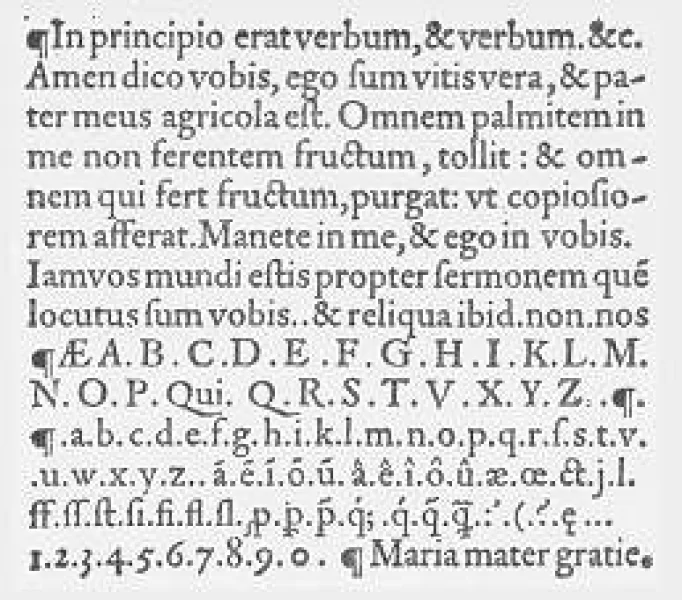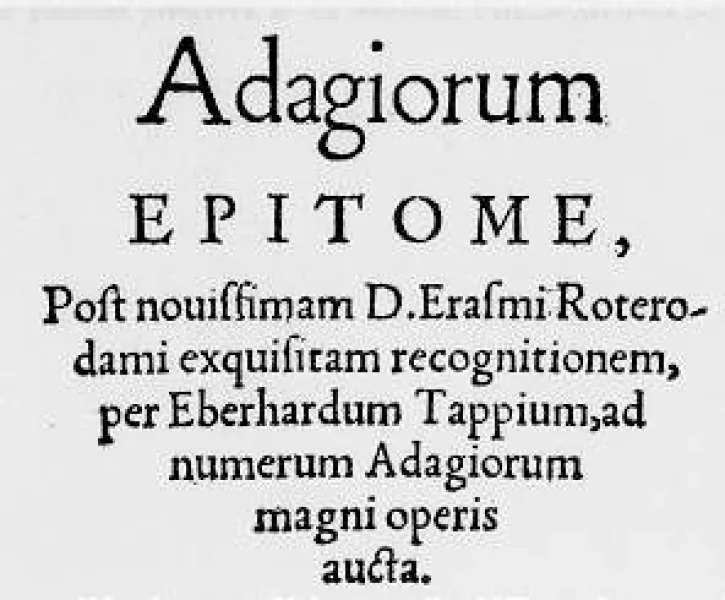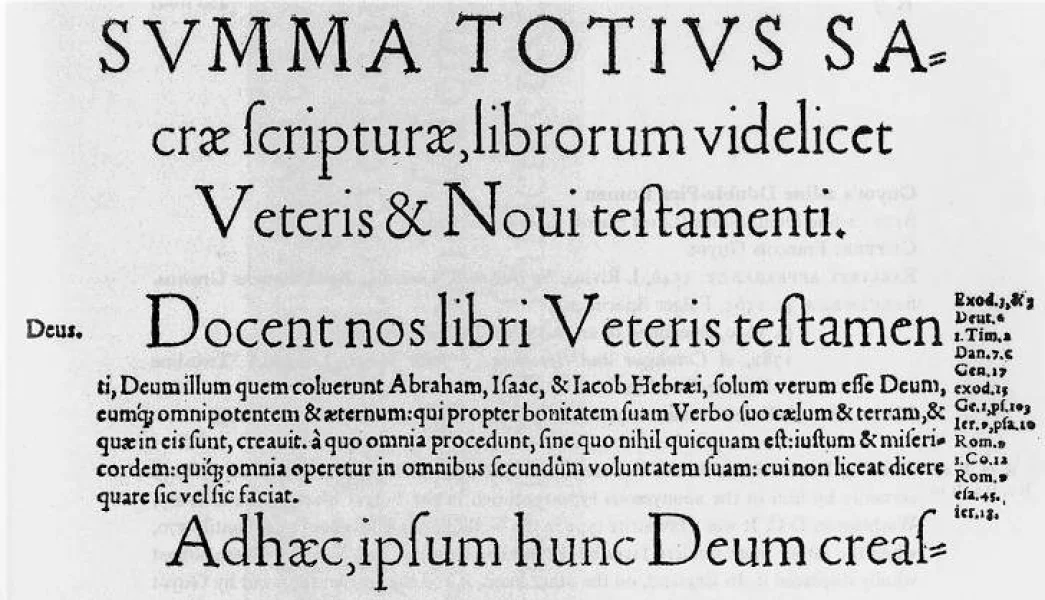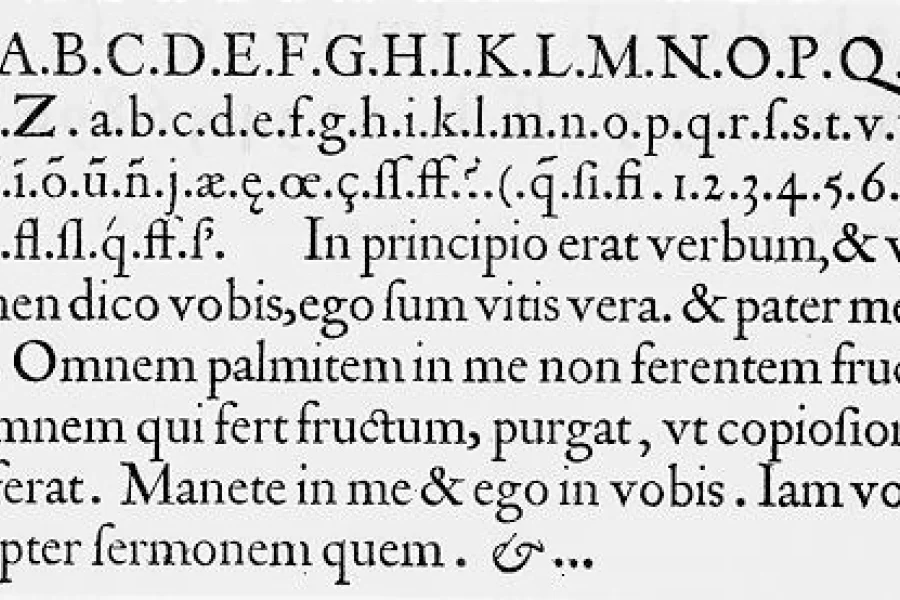
The two-tiers font included in this archive, Day Roman, is a digitally redrawn version of what has come to be historically known as the "Two Line Double Pica Roman", a typeface designed by 16th century French punchcutter François Guyot, and used in numerous books between 1535 and 1570, most notable of which are J. Steelsius's printing of The Bible (1541) and Frisius (1551), Gillis Coppens van Diest's printing of Erasmus (1544), Georgius (1544), Serlio (1550) and Horatius (1552), and Rotarius's printing of Livius Brechtius (1549). The type was also used extensively by H. Dunham, and later J. Day, in London (the name Day Roman is simply a reference to J. Day having used the type). Original matrices of Guyot's roman type are now in the Museum Plantin-Moretus in Antwerp.
A 1782 "Sale Catalog & Specimen of the James Foundry" shows a reproduction of that same type under the name "Two-Line Double Pica Macilent". Some specimens from unknown English printers dating back to circa 1650 also show the same typeface, but no proper references were given. The last recorded reference to Guyot's type can be found in "Type Specimen Fascimiles, vol. 1, No. 1 - 15," by John Dreyfus et al, printed in London circa 1963.
In digitizing this typeface, attention was mainly given to duplicate the technical imperfections of 16th century printing, which have been lost with today's technologies. In order to accomplish this, some digital type design conventions have been avoided - things like the uniformity of the serifs, overall stroke precision, vertical proportion exactitude... While trying to maintain as much fidelity as possible to Guyot's original drawings, there was also emphasis in testing to ensure good print functionality at various text and display sizes. This digitization should work nicely when used anywhere from 10 to 30 pt. Some design oddities, appealing or otherwise, may appear in 30+ pt usage. After considerable testing of the digitization, I am quite satisfied with the result as being as semi-accurate representation of Guyot's 16th century Roman, or at least a modern presentation reminiscent enough of Guyot's original.
The basic letters and figures were drawn individually from scratch, using Macromedia Freehand 10 (on OSX) and the latest Intuos2 9"x12" tablet currently available. The tablet's pen was mostly used, but sometimes the 4D mouse was used instead. The drawing of the basic set took about 9 hours. The drawings were then imported into Fontlab 4.0 (on Windows 2000), distributed to appropriate cells, tweaked and optimized, spaced, expanded to cover a full set, then kerned and subjected to initial testing. This Fontlab work took approximately 4 hours.
During the testing it was determined that an expert set would be needed to accompany the main font, simply because Guyot had made a few different versions of letters like the M and the N, as well as included many many ligatures. The expert set was built entirely through copy/paste and outline manipulation within Fontlab. Some non-Guyot characters were added to the expert set, if only to convince myself that traveling back to the 16 century didn't entirely take over my consciousness. The expert set took less than 2 hours to build in Fontlab.
So, overall, the entire project of reviving Guyot's Roman took roughly 15 hours.